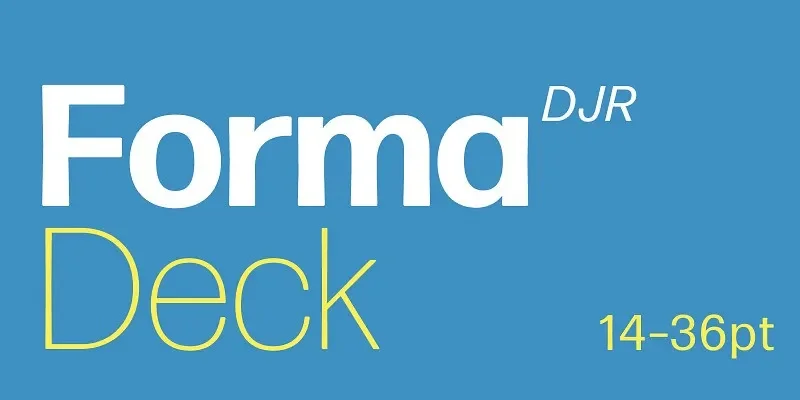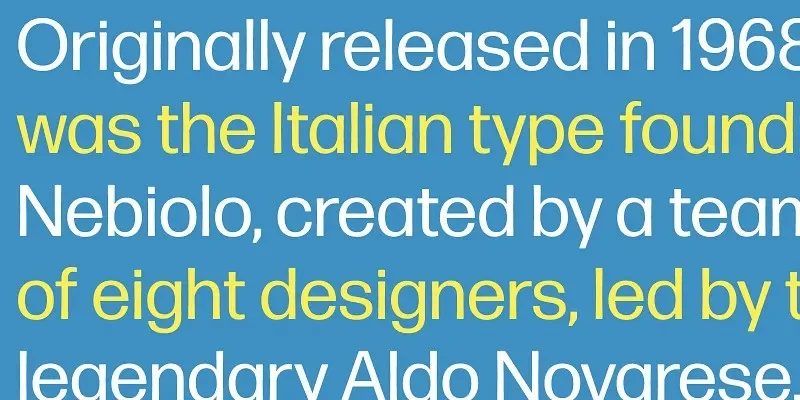
Forma DJR Deck Font Family fills the gap between text and display typography. Subheadings often lack proper scale and emphasis when standard fonts are reused.
Forma DJR Deck is a sans-serif font family designed for mid-size text. It features moderate contrast, balanced spacing, and clear letterforms suited for decks, callouts, and summaries.